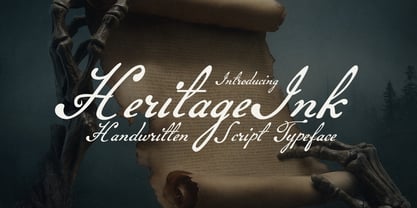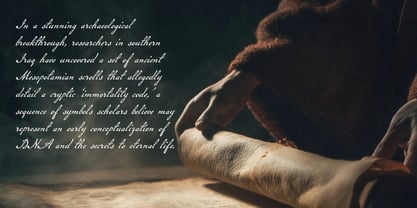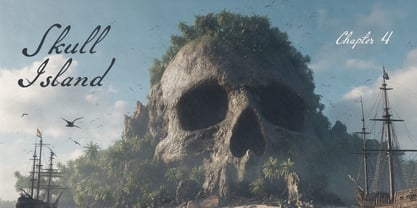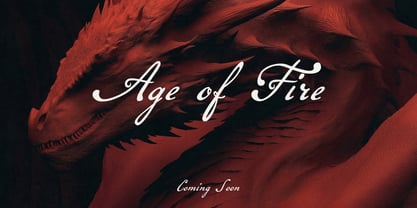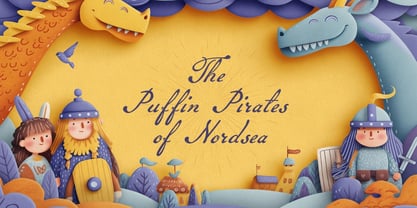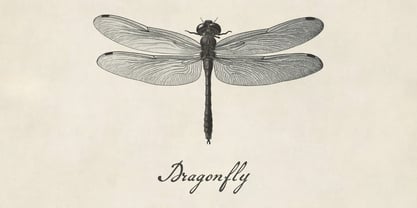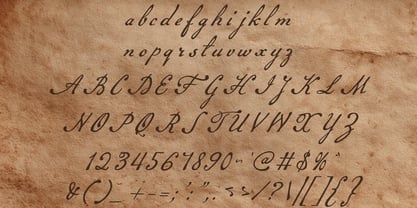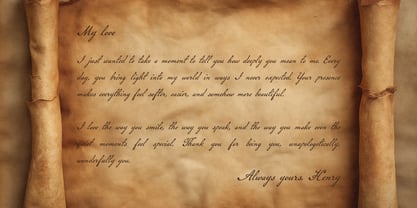
Heritage Ink
by Hipfonts
The Heritage Ink Font Family was designed by Igor Ovsyannykov and published by Hipfonts. Heritage Ink contains 1 styles. More about this family
Step into a world of weathered journals, aged parchment, and the timeless elegance of handwritten craft. Heritage Ink is a beautifully authentic handwritten script typeface designed to transport your work into the past. Every curve, loop, and flourish has been thoughtfully crafted to mimic real vintage handwriting—raw, imperfect, and undeniably human. This typeface radiates old-world charm, making it the perfect choice for designers seeking to add a historical, antique, or heritage feel to their projects. Whether you’re creating museum displays, historical posters, archival branding, book covers, maps, letters, or period-inspired artwork, Heritage Ink delivers a truly authentic and realistic touch. Carefully textured and organically flowing, its strokes carry the essence of ink pens from eras long gone. The subtle irregularities create warmth and character, giving your designs a believable handwritten effect that feels like it was penned a century ago. Bring your stories, visuals, and identities to life with a typeface that honors tradition while elevating your creative vision.
Designers: Igor Ovsyannykov
Foundry: Hipfonts